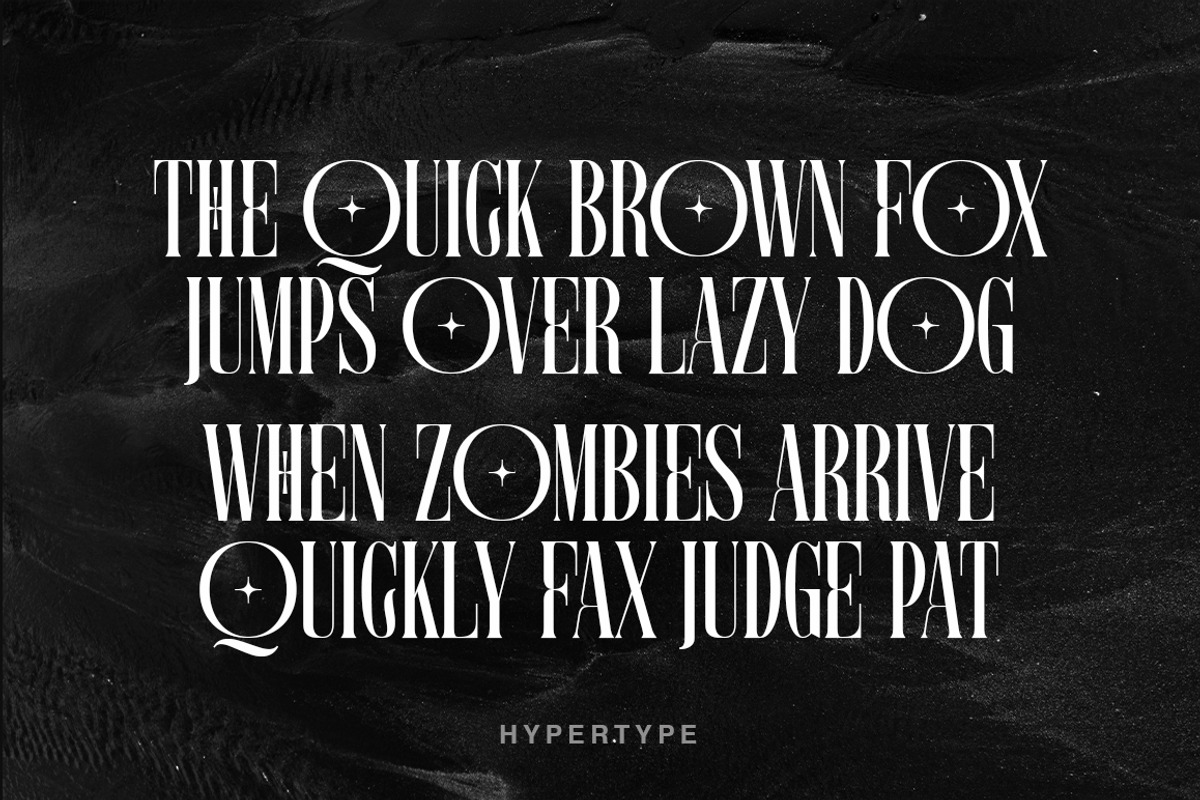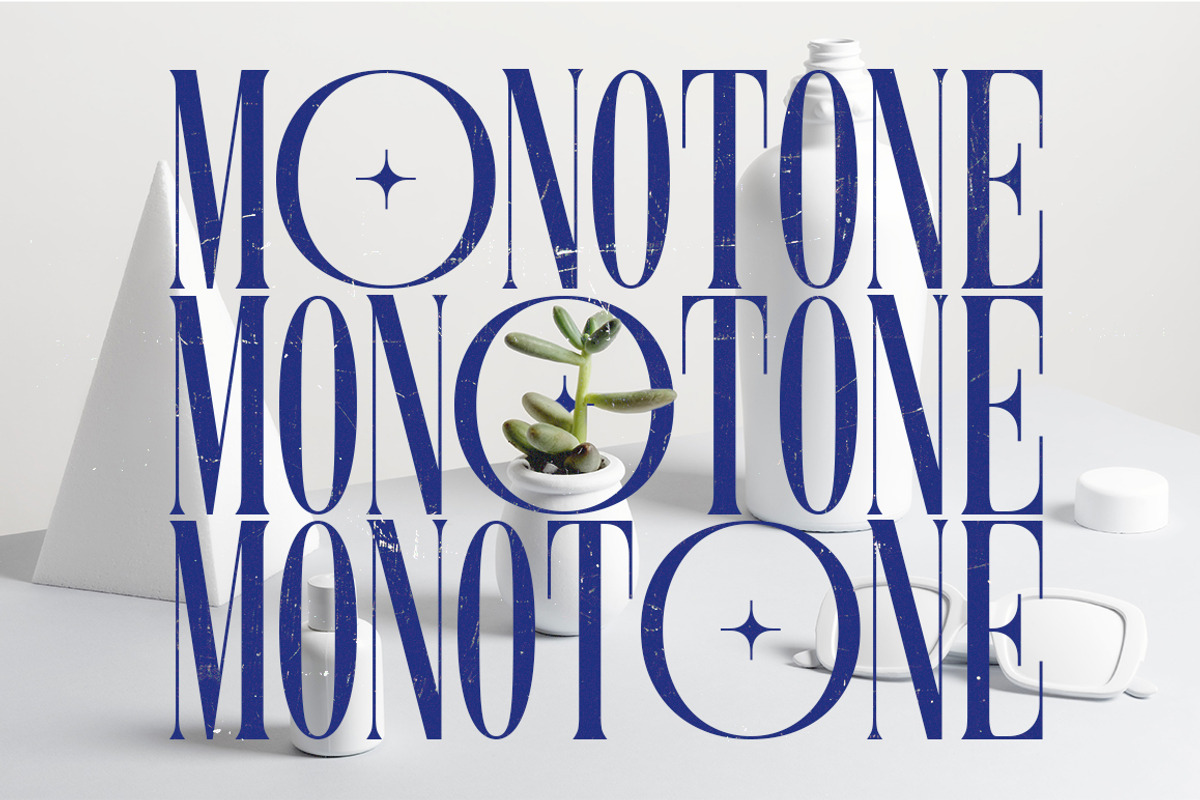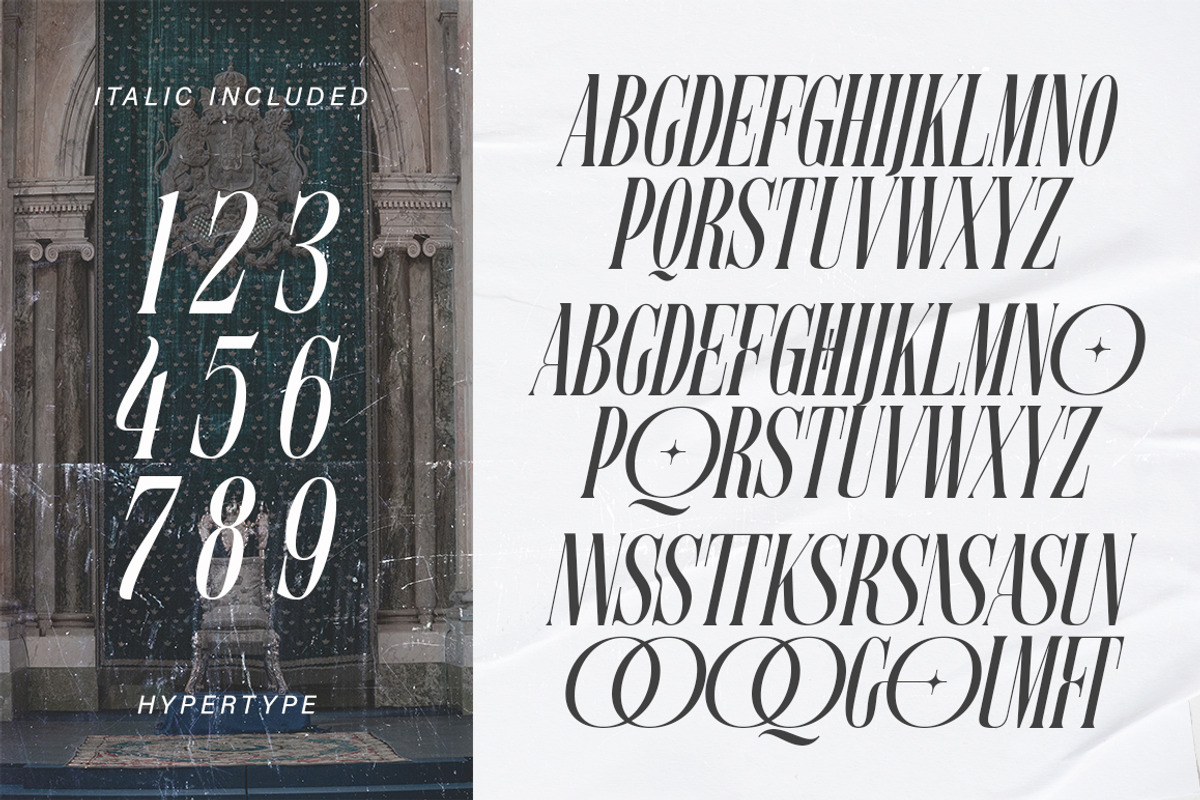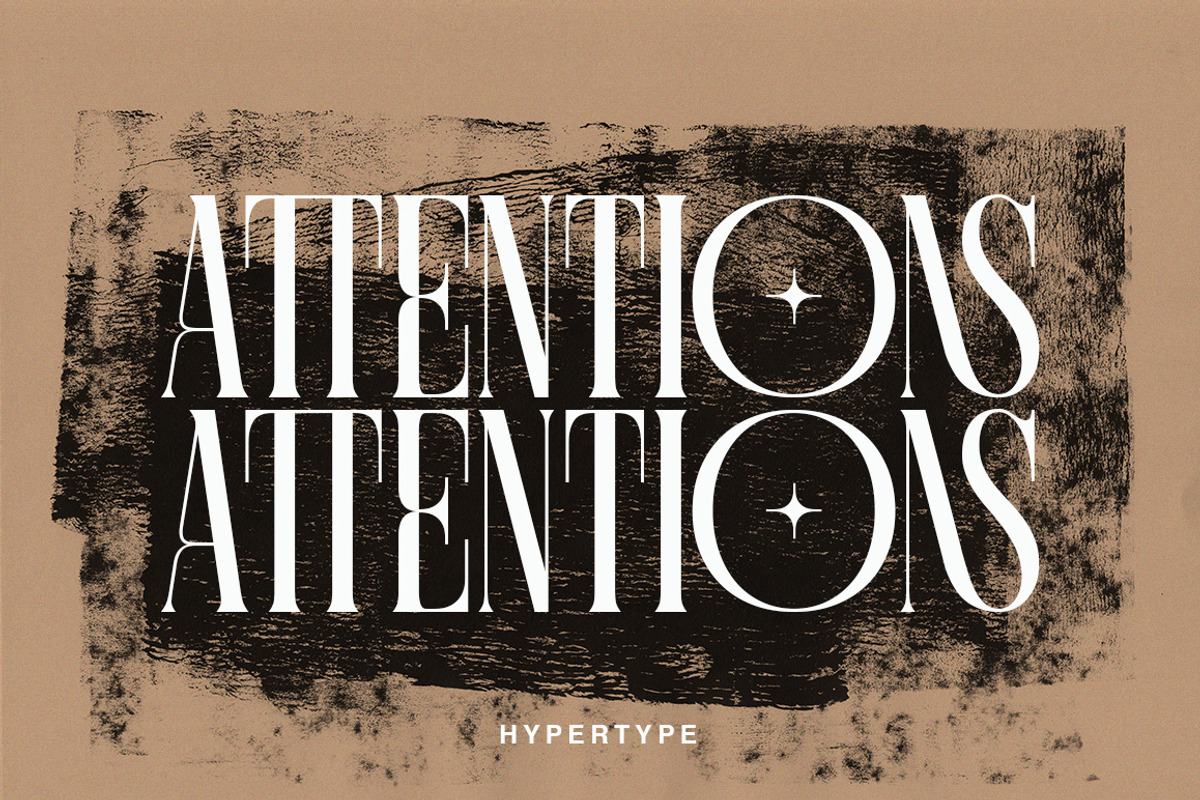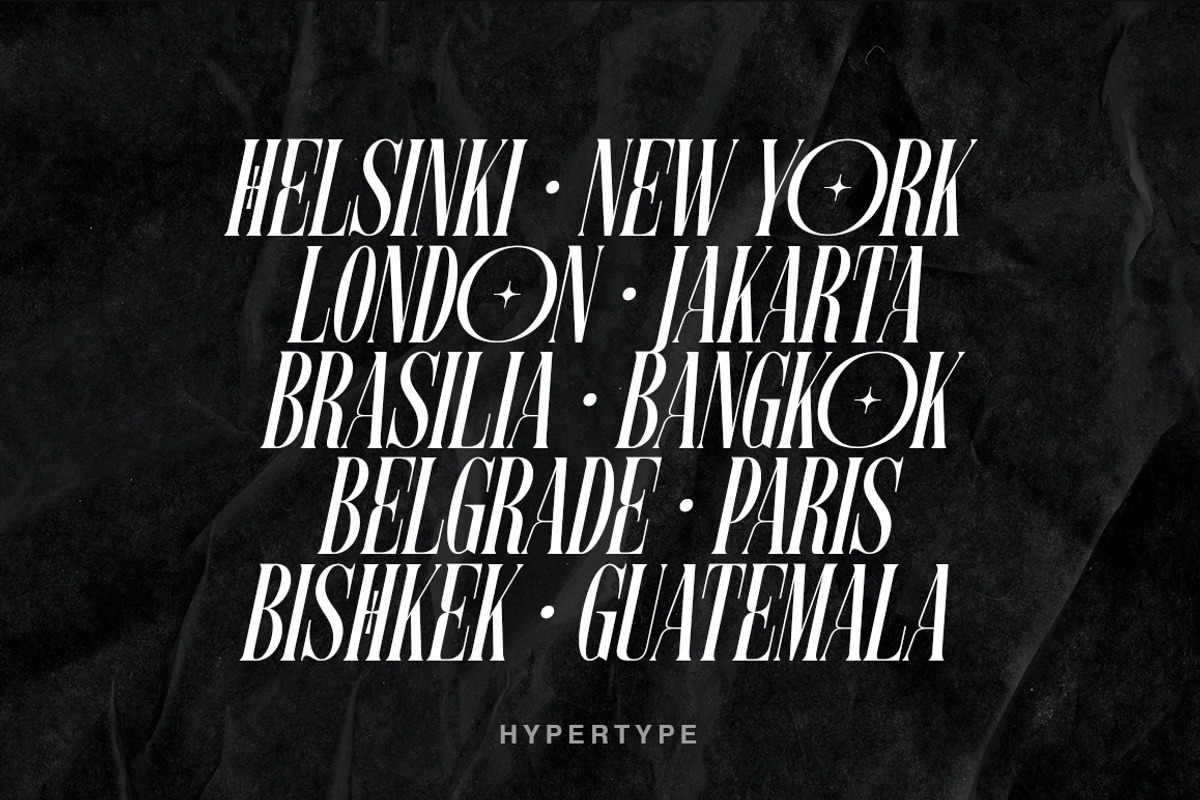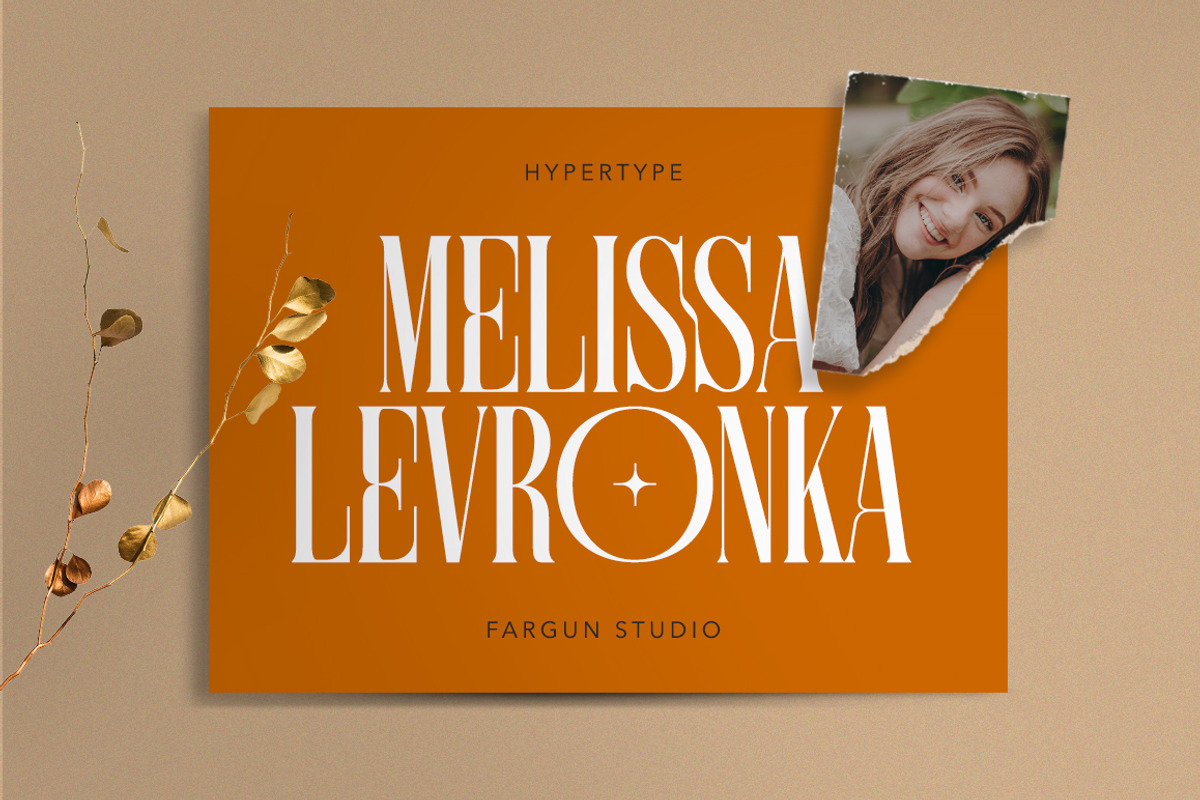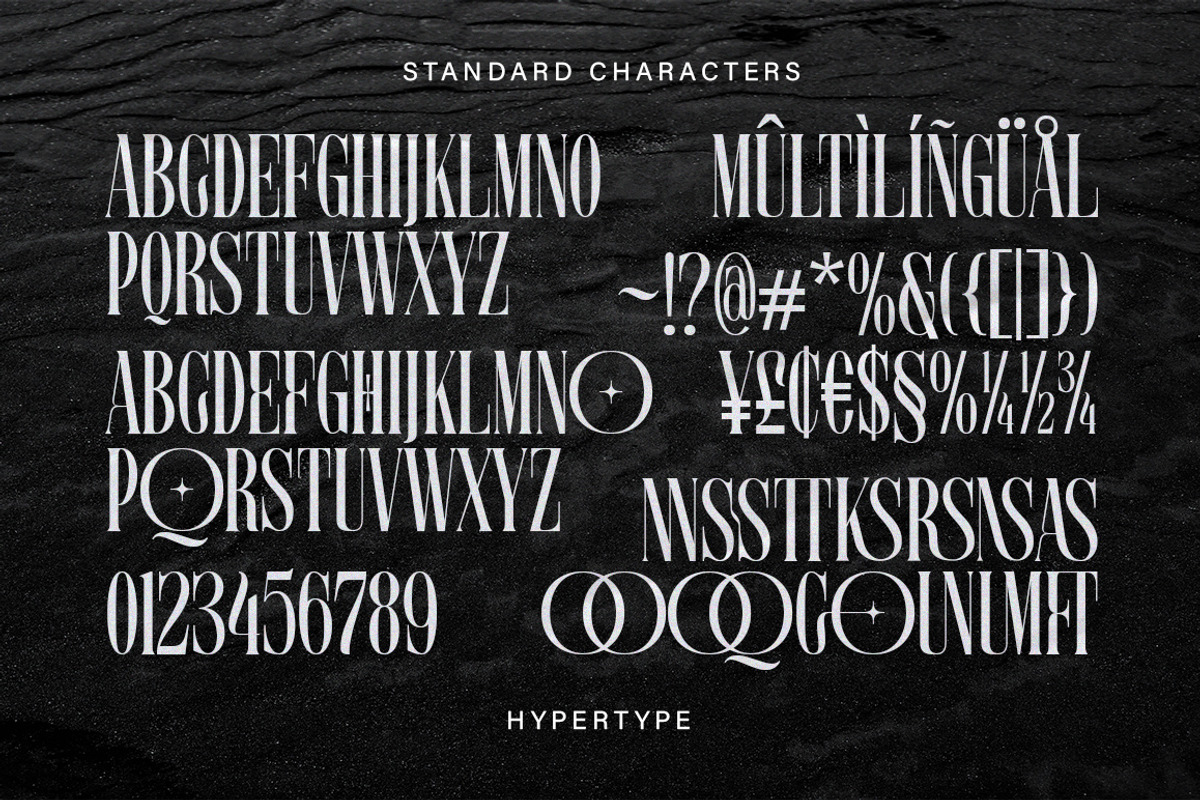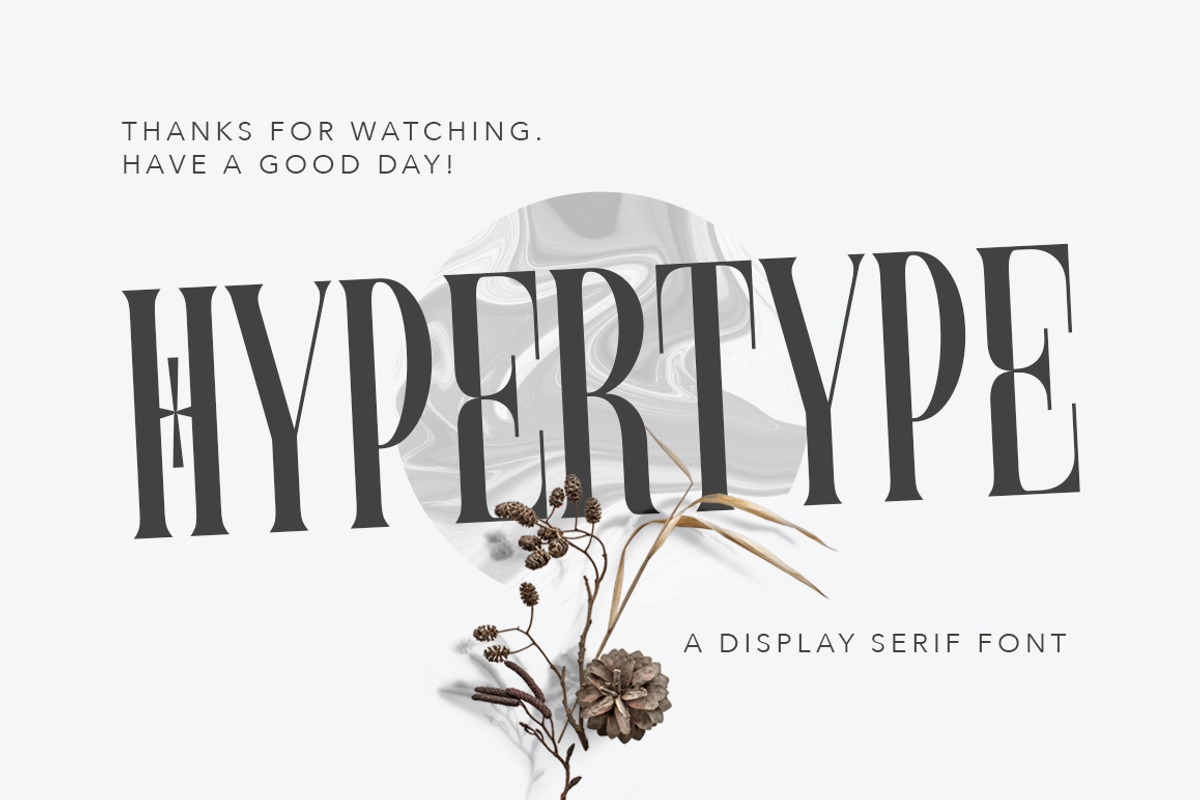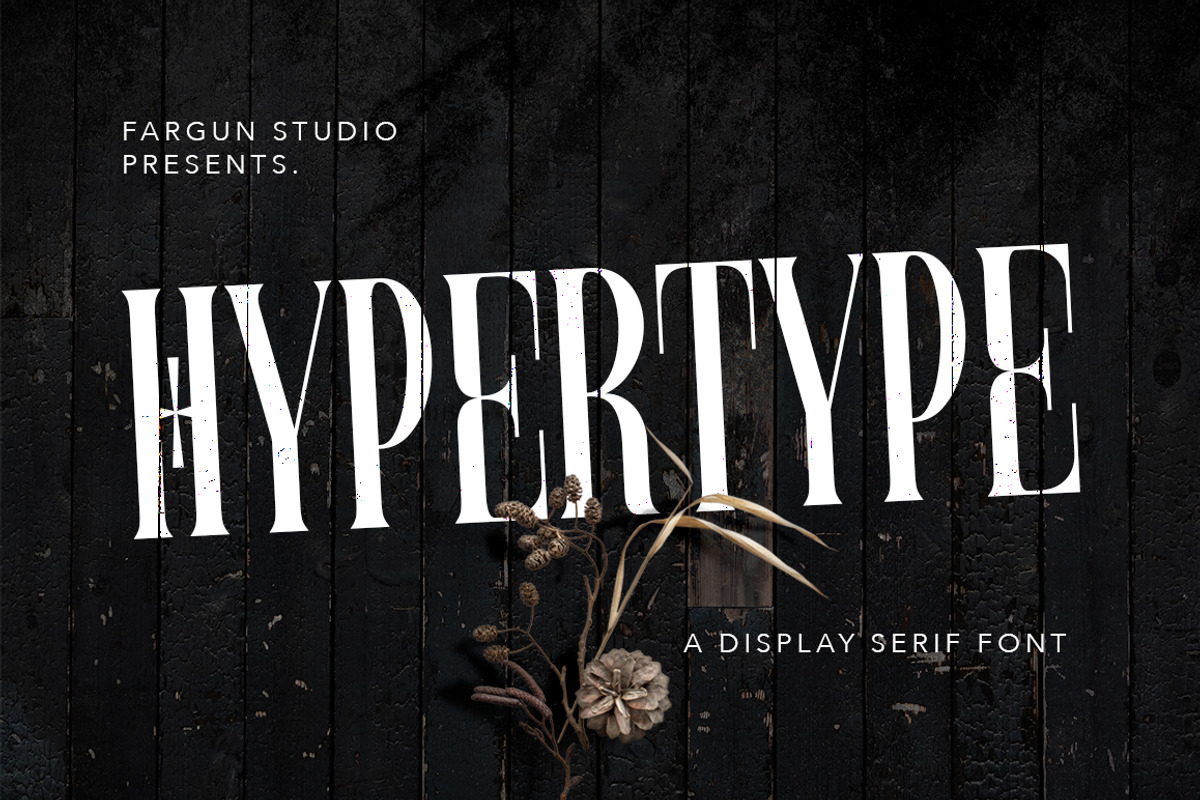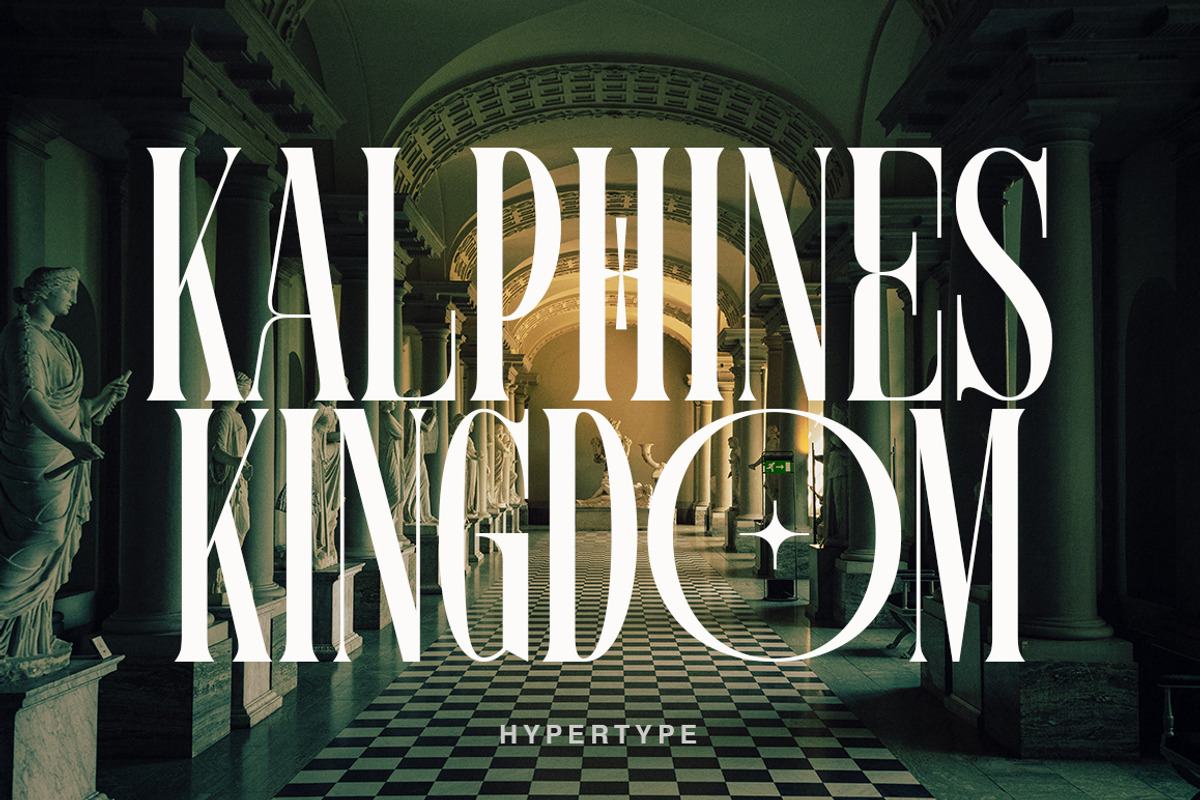
Hypertype : Elegant Serif Display
Hypertype is my new elegant serif display font that will bring a touch of style and luxury to your projects. It is perfect for branding, logotypes, blog headlines and many more your design needs.